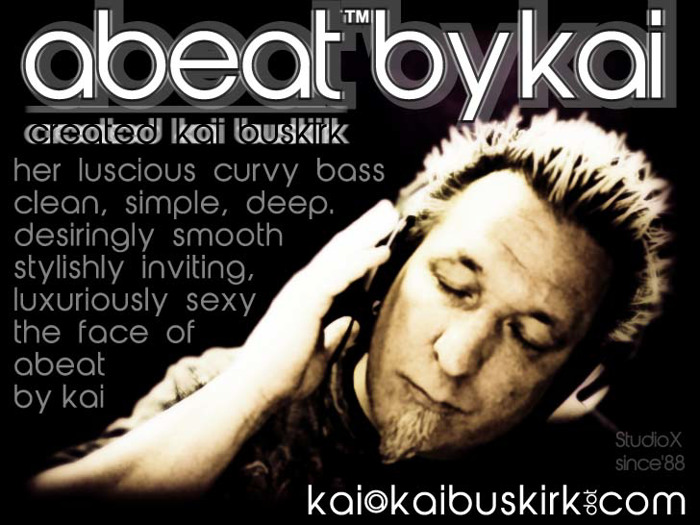
abeatbyKai Font
her luscious curvy bass
clean, simple, deep.
desiringly smooth
stylishly inviting,
luxuriously sexy
the face of
abeat
cute font
Awesome font!
I've used this font so many times for so many projects! I absolutely love it! This type just flows from one letter to the next, creating such a smooth, sleek look! Love it! Thank you so much for this!!!
One of my favorites. Especially as my iPhone system font.